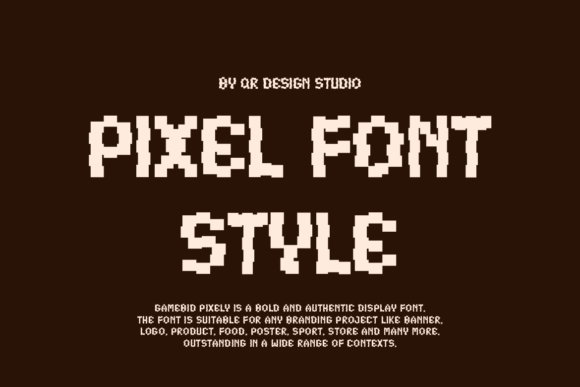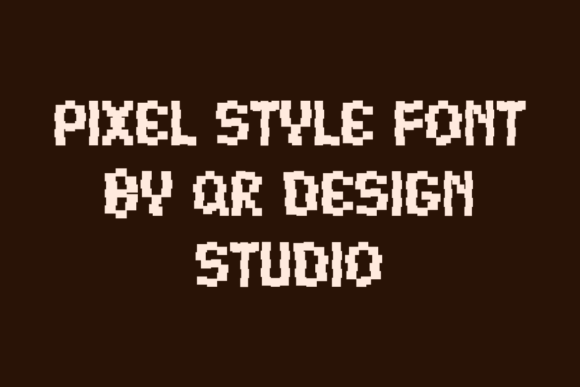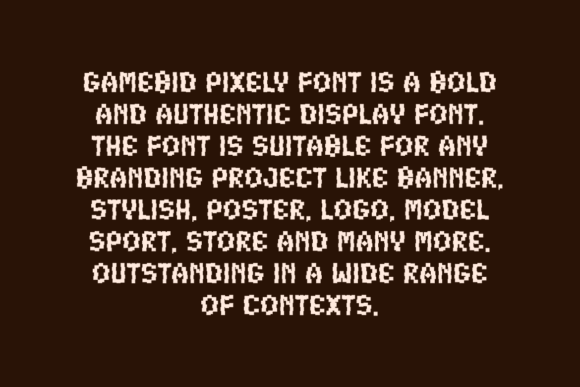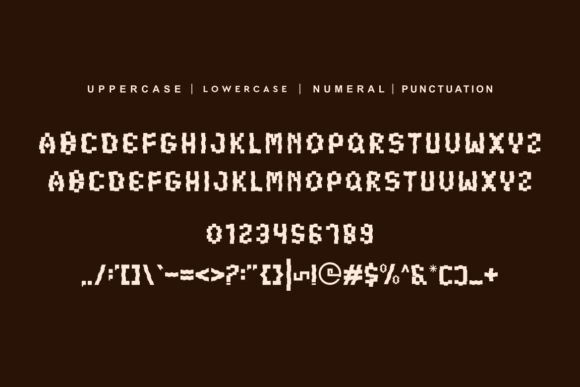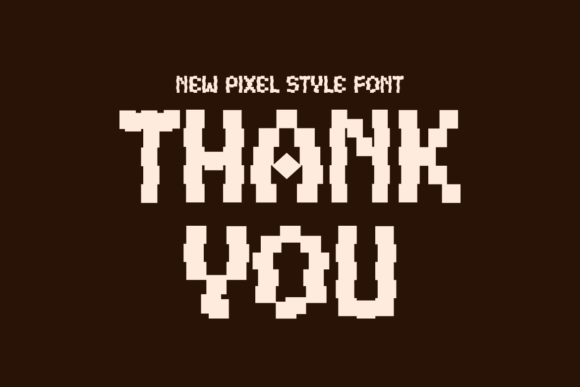
The Joy of Typography: Introducing Gamebid Pixely Font
Do you remember the excitement of discovering a new font that perfectly captures the essence of your creative vision? For designers, it’s a moment of pure magic. You’re brainstorming ideas for a children’s game, and suddenly, the perfect font pops into your mind. It’s playful, vibrant, and instantly conveys the sense of fun and adventure you’re trying to create.
Enter the Gamebid Pixely Font, a delightful display font designed to bring joy to your designs. This charming font is perfect for cartoon-related projects, children’s games, quotes, titles, brand names, book covers, posters, and any other creation that requires a touch of whimsy. With its friendly and approachable feel, Gamebid Pixely Font is a valuable addition to any designer’s toolkit.
Whether you’re a seasoned pro or just starting out, the Gamebid Pixely Font is sure to inspire your next creative project. Its versatility and charm make it a must-have for designers looking to add a little extra magic to their work.
Gamebid Pixely Font Key Features
- Font Style: Pixelated font designed to resemble classic video games
- Character Count: 230 characters, including uppercase and lowercase letters, numbers, and special characters
- Resolution: Optimized for display at 72 dpi, making it ideal for digital use in games, apps, and websites
- Unique Characteristics: Features a distinctive pixelated aesthetic, with bold lines and a retro feel
- Font Size: Available in a range of sizes, from 8pt to 48pt, allowing for flexible use in various design contexts
Gamebid Pixely Font Review
Overall, I was really impressed with the Gamebid Pixely Font, and I think it’s a great choice for many projects. ✨ The pixel art aesthetic is executed perfectly, with crisp and clean lines that are reminiscent of classic video games. The font is highly customizable, making it easy to adjust the size, color, and spacing to suit your needs.
One of the things that really stood out to me was the wide range of supported languages. ✨ The font includes over 200 languages, making it a great choice for projects that require a high level of internationalization.
- ⚠️ The font may not be suitable for high-end or professional projects, as the pixel art aesthetic can be seen as somewhat retro or nostalgic.
- ⚠️ The font is not as scalable as some other fonts, and may not look as crisp at larger sizes.
- ⚠️ Some users may find the font’s boldness to be too overpowering or overwhelming.
Overall, I think the Gamebid Pixely Font is a great choice for projects that require a fun, retro aesthetic. While it may have some limitations, it’s a highly customizable and versatile font that can be used in a wide range of applications.
Use the Gamebid Pixely Font to create a retro arcade or pixel art look.
Pair it with other pixel fonts to create a unique and eye-catching design.
Use it for headings and titles to add a touch of nostalgia to your design.
Game development logos and branding.
Pixel art graphics and animations.
Retro-style posters and flyers.